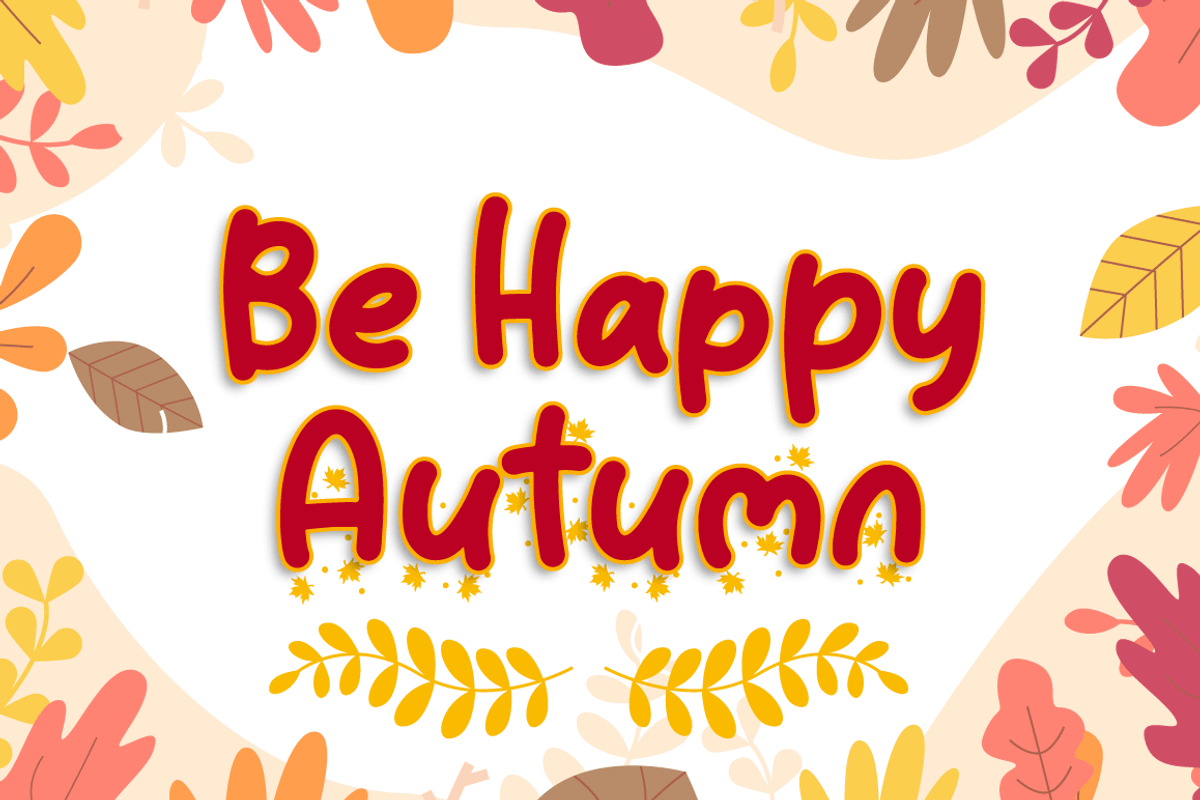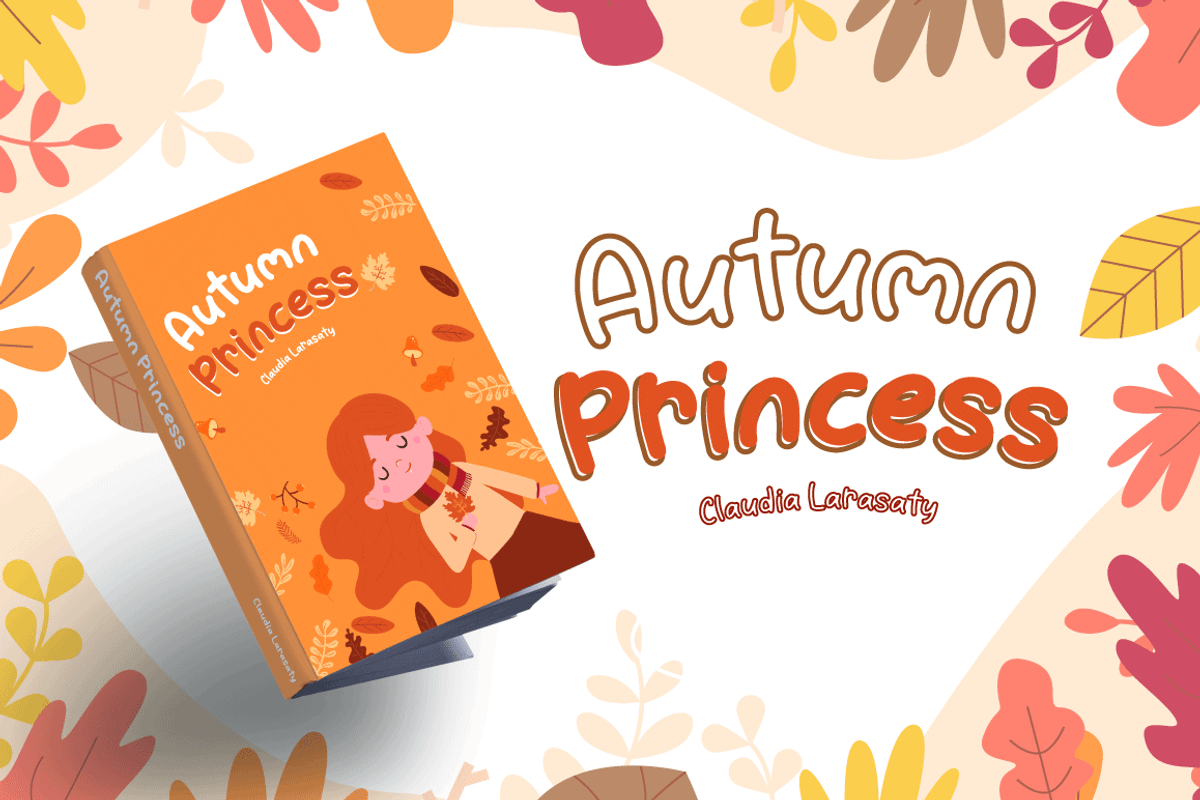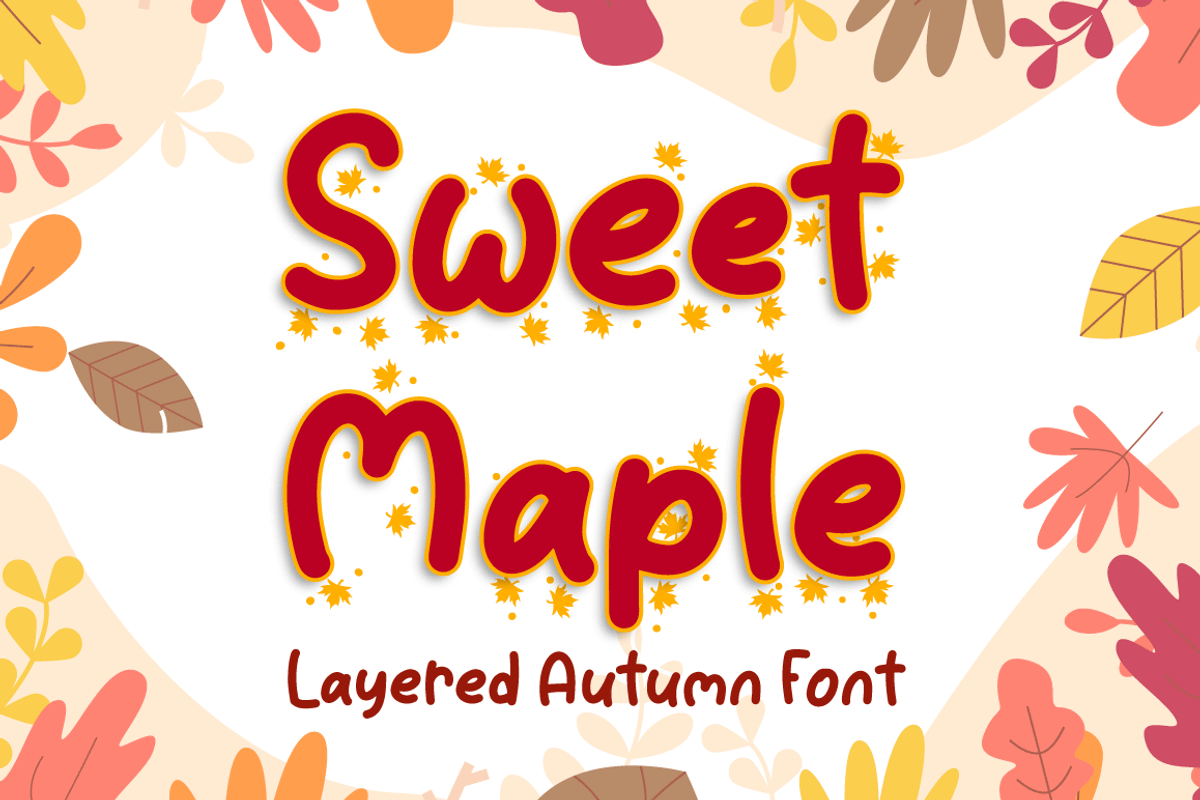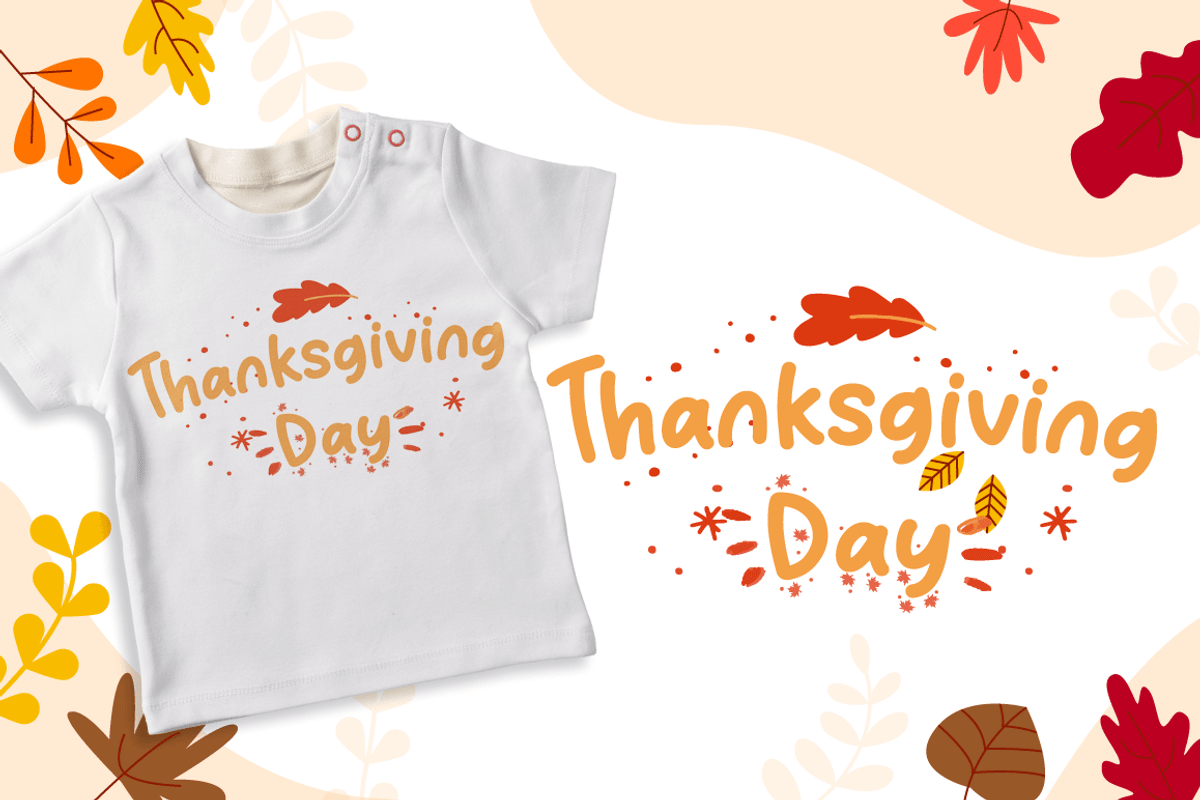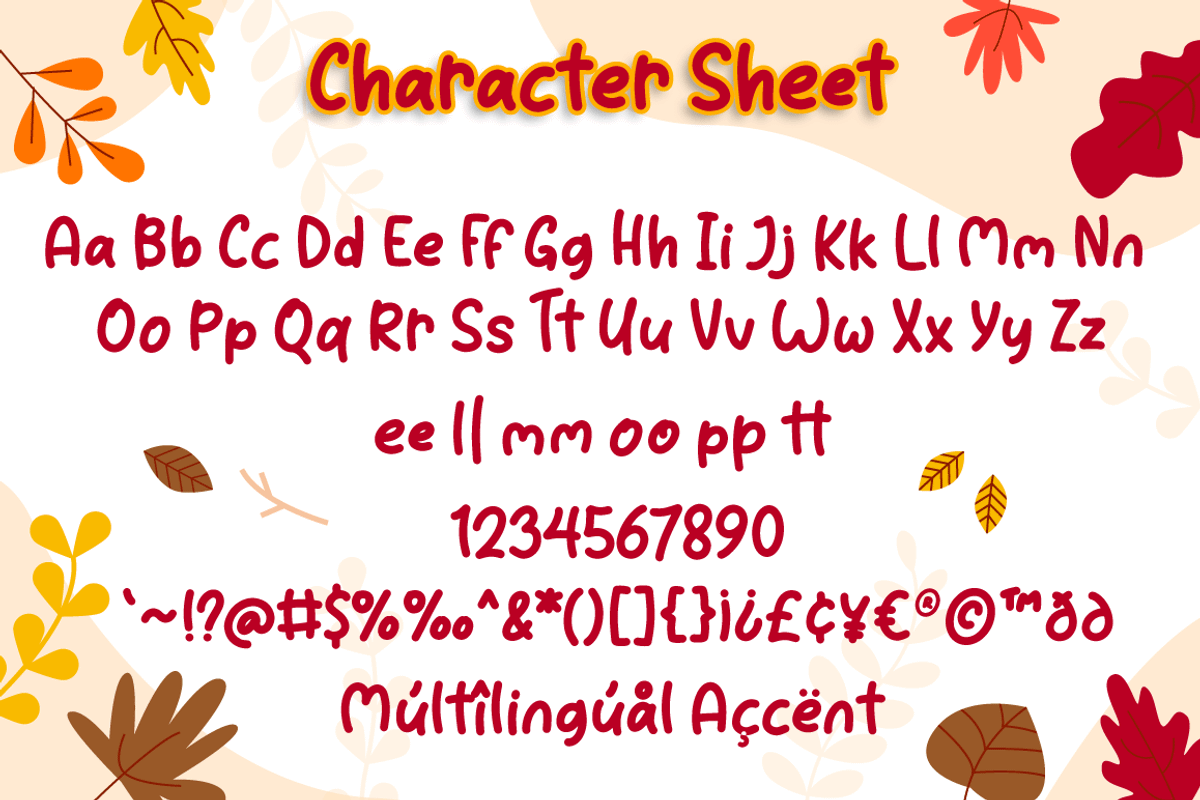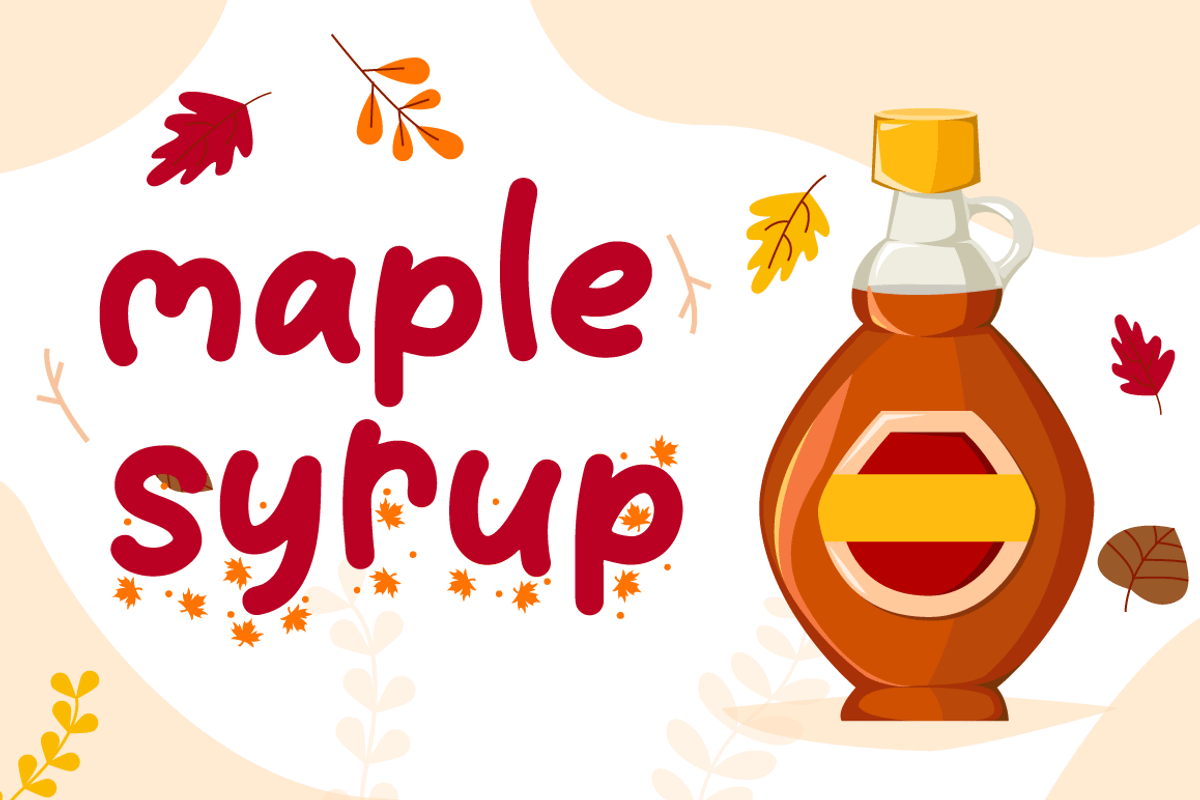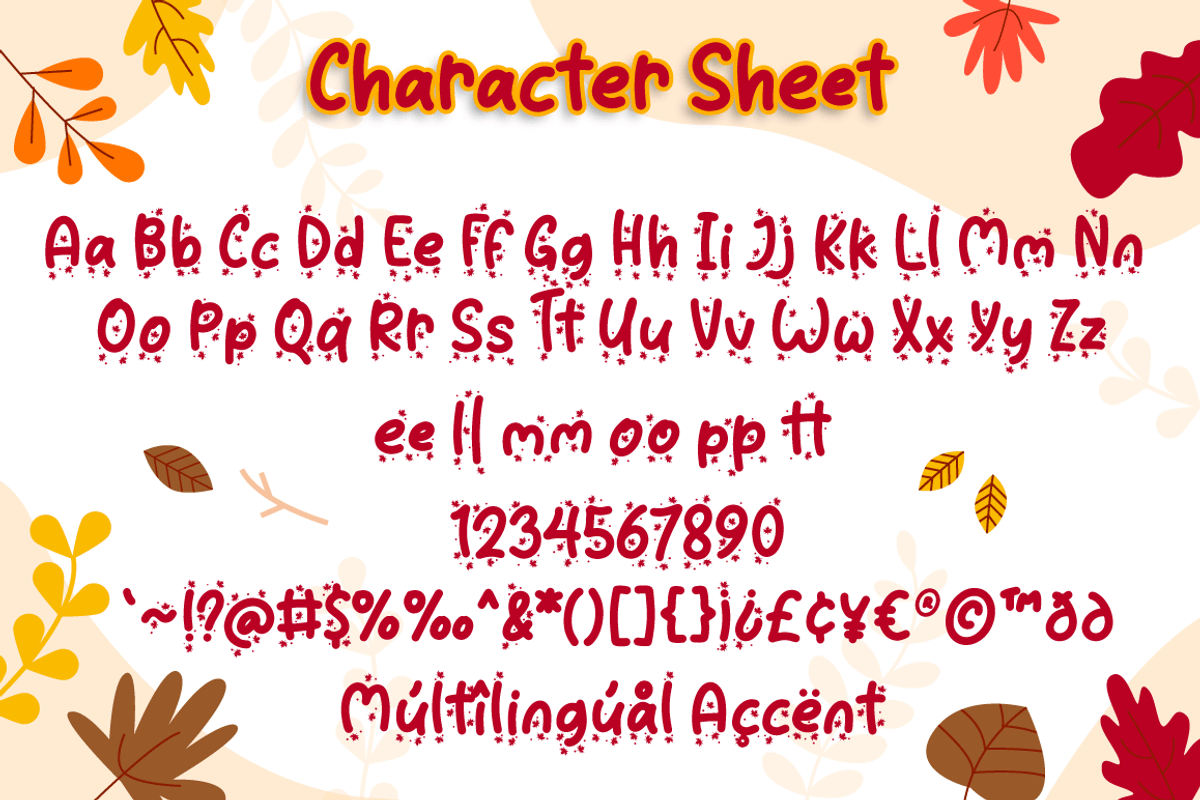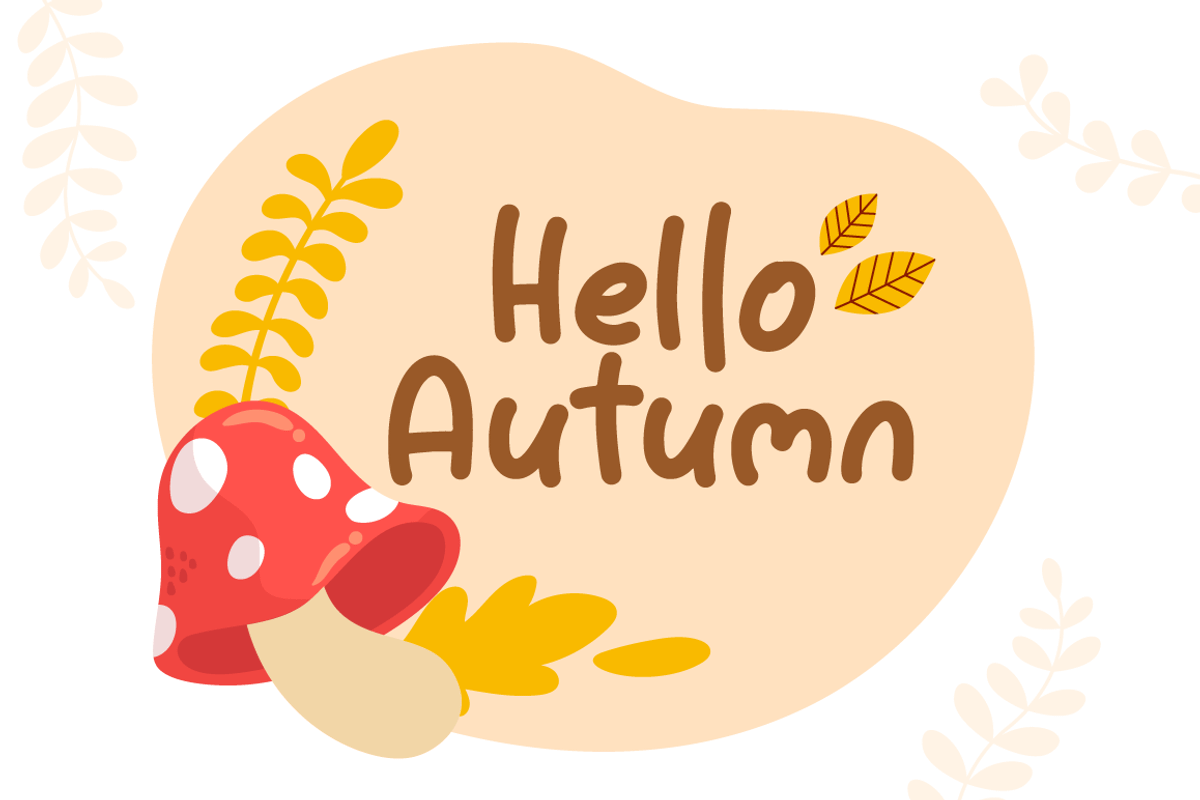
Sweet Maple
Sweet Maple is layered autumn font with maple leaf display, Fall in love with it and bring your projects to the highest levels!
Sweet Maple is perfect for branding, logo, invitation, stationery, social media post, product packaging, merchandise, blog design, game titles, cute style design, Book/Cover Title and more.